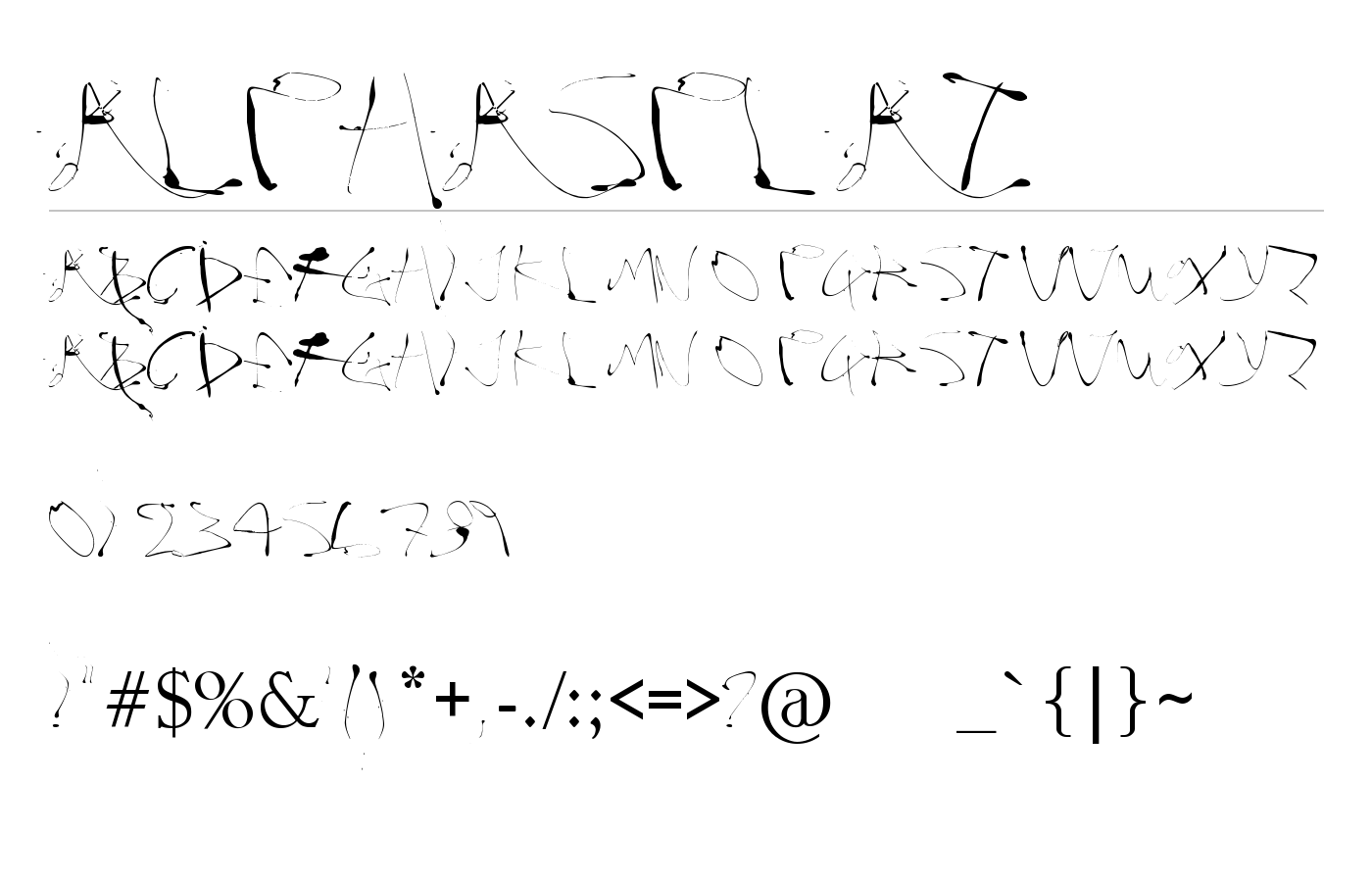
Alphasplat is a highly expressive, handwritten-style font that features thin, irregular, and fluid strokes resembling ink splatters and paint drips. Its tall, narrow letterforms with erratic lines create a whimsical, artistic vibe, making it ideal for creative projects that seek a unique and edgy look. This font works best for eye-catching headlines, posters, and branding that embraces playfulness or alternative, experimental aesthetics.
Alphasplat Font